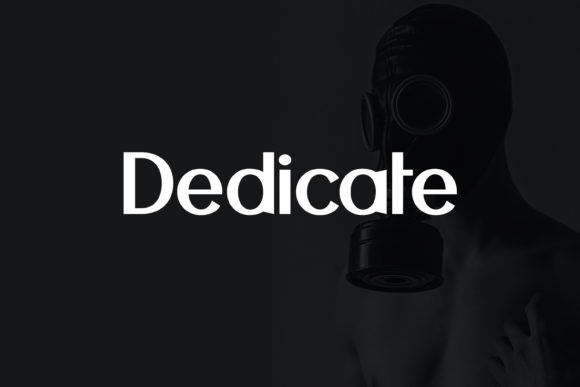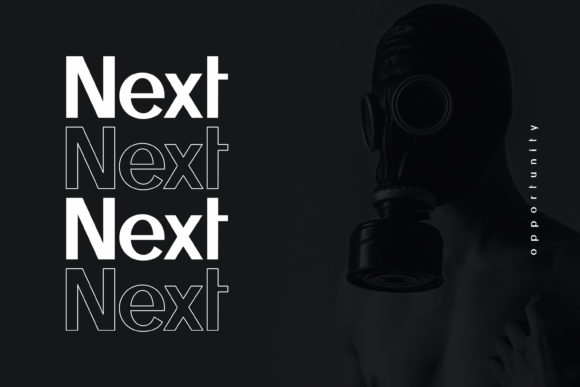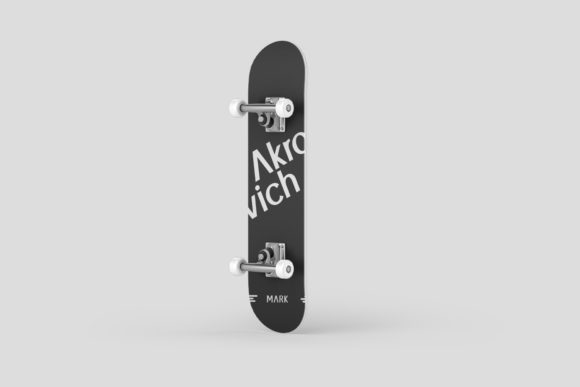
The Perfect Match for Your Next Creative Project
You know that feeling when you’re brainstorming ideas for a new project, and everything just clicks? The colors, the layout, the font – it all comes together in perfect harmony. And that’s exactly what happened when I stumbled upon the Akrovich Font. This minimal and neat sans serif font is a game-changer, and I’m excited to share why it’s a must-have for any designer looking to elevate their work.
Akrovich Font is designed to be versatile and easy to match with a wide range of projects, making it a valuable addition to any designer’s toolkit. Whether you’re working on a logo, brochure, or website, this font is sure to bring a touch of sophistication and elegance to your design.
Akrovich Font Key Features
- Font Family: Akrovich Font is a sans-serif font family designed for modern typography.
- Unique Characteristics: Akrovich Font features a clean, geometric design with subtle rounded edges, making it suitable for modern branding and digital interfaces.
- Font Weight and Style: Available in multiple weights (Light, Regular, Medium, Bold, Extra Bold) and styles (Italic, Oblique) to cater to various design needs.
Akrovich Font Review
As a designer, I was excited to try out the Akrovich Font. Here’s my honest review:
The Akrovich Font has a unique and modern aesthetic that’s perfect for contemporary designs. The bold and italic styles are particularly striking, adding a touch of sophistication to any layout. The font’s legibility is also excellent, making it easy to read even at small sizes.
- Unique and modern design
- Excellent legibility
- Bold and italic styles are well-executed
While the Akrovich Font is a great addition to any designer’s toolkit, it does have some limitations. The font’s weight is a bit inconsistent, which can make it difficult to achieve a seamless transition between different styles. Additionally, the font’s x-height is a bit too large, which can make it appear cluttered at larger sizes.
- Inconsistent weight
- Larger x-height can make text appear cluttered
Overall, I think the Akrovich Font is a solid choice for designers looking for a modern and unique font. While it may not be perfect, its strengths far outweigh its weaknesses. With a bit of tweaking and careful styling, the Akrovich Font can add a touch of sophistication to even the most mundane designs.
Tips for Getting the Most Out of Akrovich Font
To get the most out of the Akrovich Font, use it in bold and italic styles to add emphasis to your text. You can also use it in combination with other fonts to create a unique and eye-catching design.
The Akrovich Font is commonly used in creative projects, such as:
- Book covers and interior design
- Magazine and newspaper headlines
- Brand logos and identity design